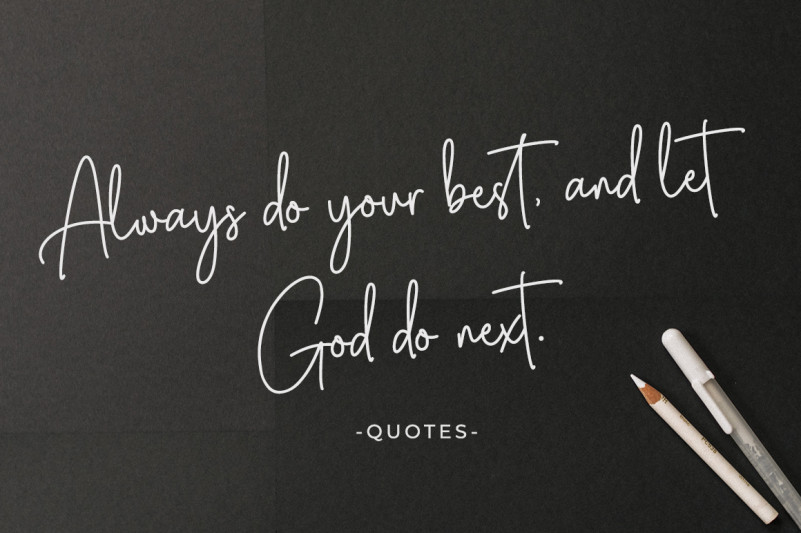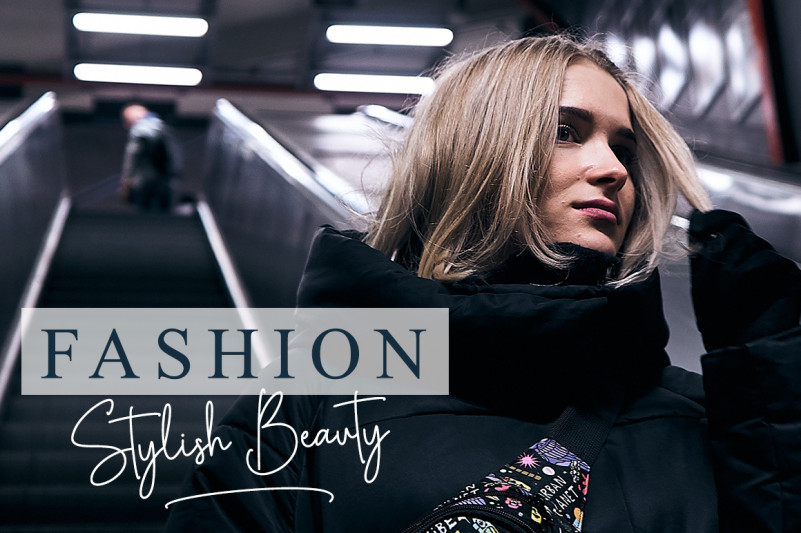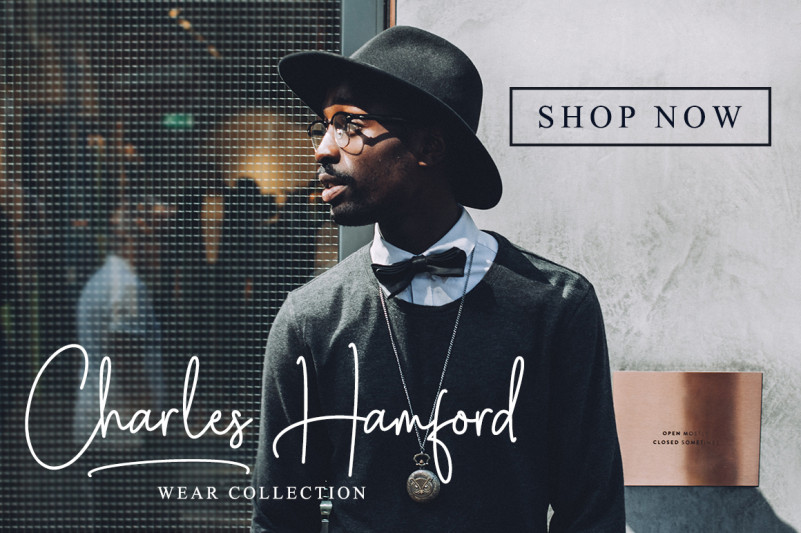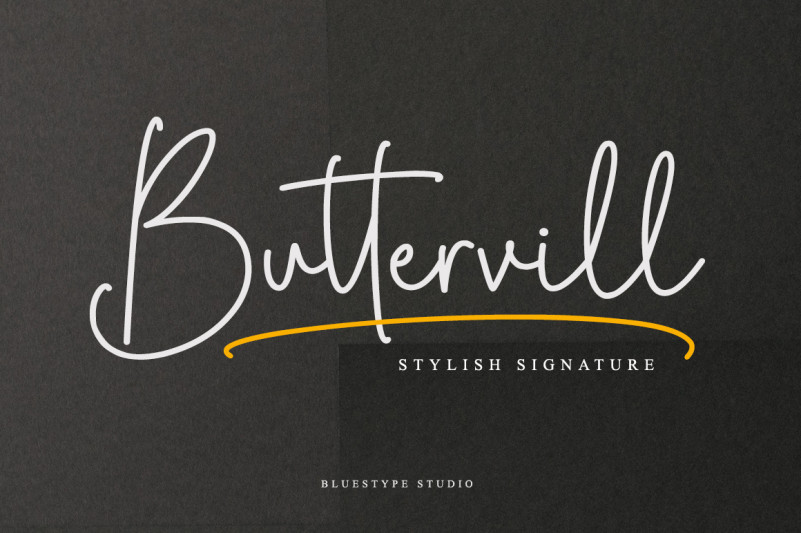
Buttervill Signature Font
Thank you for looking Buttervill Font. This is a sweet and simple hand-drawn font. Its bold and curvy characters will add a personal touch to any project! It’s designed by Bluestype Studio. Buttervill Signature is a sweet and simple script that will easily add a dash of authenticity to your next creative endeavor. This font will perfect for many different project ex: quotes, logo, blog header, poster, banding, fashion, apparel, letter, invitation, stationery, etc…